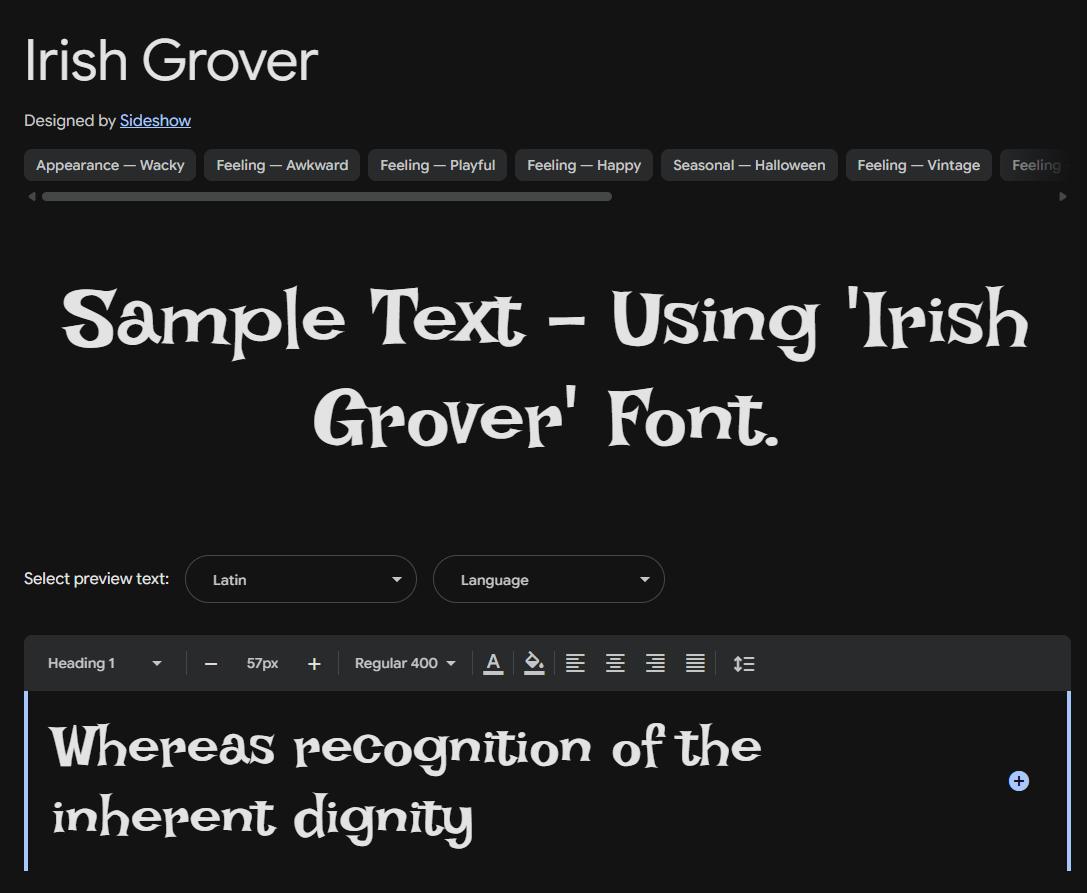
Irish Grover, a singular display typeface from the Sideshow foundry, exemplifies a masterclass in bouncy baseline rhythm and exuberant glyph construction. Characterized by its heavy stroke weights and asymmetrical counters, this single-weight font eschews the rigid constraints of traditional grotesques in favor of a boisterous, hand-lettered aesthetic that maximizes display-tier legibility through high x-heights and exaggerated terminals. Its vector paths are meticulously balanced to maintain visual weight across festive headlines, leveraging a rhythmic, non-linear typographic flow that mirrors the spontaneity of vintage brush lettering. By blending Celtic-inspired flair with modern digital optimization, Irish Grover serves as a robust tool for thematic branding, where its unique letterform geometry creates a spirited, jovial personality that remains distinct within the Latin character set.
The Irish Grover font family, originally crafted by the design studio Squid, stands as a premier display typeface that masterfully synthesizes a wacky, asymmetrical geometry with a rugged, hand-lettered aesthetic. Leveraging an awkward yet deliberate baseline shift and irregular x-heights, this typeface projects a vintage charm that makes it an indispensable tool for loud, excited headlines and atmospheric Halloween compositions. Its unique glyph construction features playful, rounded terminals and high-contrast stroke modulation, imbuing digital layouts with a happy, sincere energy that alternates between a childlike, cute sensibility and a bold, rugged presence. By breaking conventional typographic formalisms, Irish Grover creates a playful visual hierarchy that is both vibrantly excited and deeply nostalgic, offering a sincere and tactile experience for designers seeking a loud and expressive typographic voice.
Characterized by its exuberant, irregular baseline and eccentric, high-contrast slab-serif anatomy, Irish Grover-a singular display style from the Sideshow foundry-is fundamentally ill-suited for high-stakes corporate environments such as legal consultancy, algorithmic finance, or medical documentation where typographic authority and cognitive ease are paramount. The typeface's whimsical glyph construction and erratic x-height create a high degree of visual noise, which significantly compromises reading speed in dense body copy and violates the utilitarian principles of "Crystal Goblet" typography, where the medium must not obscure the message. In professional contexts requiring WCAG-compliant accessibility or the sober gravitas of minimalist luxury branding, the font's playful DNA introduces an inappropriate level of kitsch that undermines institutional trust and disrupts the precise kerning and rhythmic consistency necessary for sophisticated technical information architecture.
Irish Grover thrives in playful, informal, and festive designs that require a touch of personality and hand-drawn charm. Its bouncy baseline and high-stroke contrast make it ideal for Saint Patrick's Day themes, utilizing its distinct display classification to evoke a "happy-go-lucky" visual identity.
This typeface is not recommended for extensive body text because its highly decorative and irregular shapes can impede readability at small sizes. Metric analysis shows that the font's eccentric glyph apertures and varying widths lead to visual fatigue when processed as long-form blocks of text.
To create a balanced hierarchy, it is best to pair this flamboyant display font with neutral sans-serifs or clean serifs. Pairing with Open Sans or Roboto provides a stable x-height contrast, ensuring that the decorative flourishes of Irish Grover do not clash with functional UI elements.
It is an excellent choice for logos that want to convey friendliness, artisanal qualities, or a specific cultural flair. The font's unique vector paths and thick stroke weights ensure high brand recognition, though it requires generous kerning adjustments to maintain silhouette integrity at various scales.
The bold and chunky nature of the characters makes it highly visible and impactful when used on banners or posters. Its substantial stroke weight provides high luminance contrast against solid backgrounds, making it a robust choice for physical environmental graphics.
The whimsical and slightly uneven letterforms resonate perfectly with the youthful and energetic tone required for children's media. Psychologically, the soft rounded terminals and lack of sharp angles reduce visual tension, aligning with developmental preferences for approachable geometric shapes.
While it works for short headlines or buttons, it is generally too complex for intricate mobile navigation or small system text. Rendering benchmarks indicate that the intricate counter spaces in Irish Grover can suffer from pixelation on low-PPI screens, potentially compromising accessibility standards.
Vibrant and earthy palettes, such as deep greens, golds, and warm browns, complement its rustic and festive spirit. Utilizing high-saturation hues enhances the font's display characteristics, while its thick stems allow for complex gradients without losing legibility through color bleed.
Irish Grover currently exists as a single weight and style, lacking a true italic or oblique companion. Designers must rely on CSS skew transforms, though the inherent "bouncy" rhythm of the glyphs already provides significant kinetic energy without slanting.
It is usually too casual for high-end formal events like weddings, appearing more playful than sophisticated. The lack of classical serif proportions and the presence of exaggerated terminal flourishes classify it firmly as a novelty display face rather than a traditional calligraphic script.